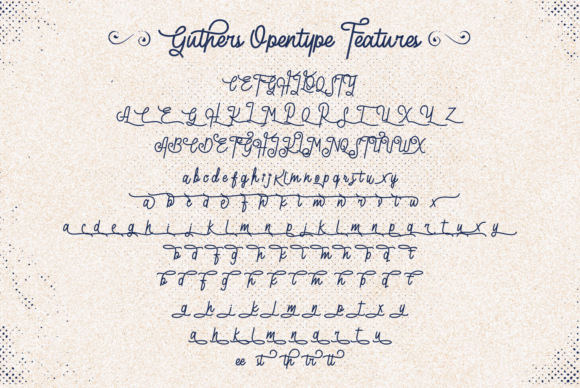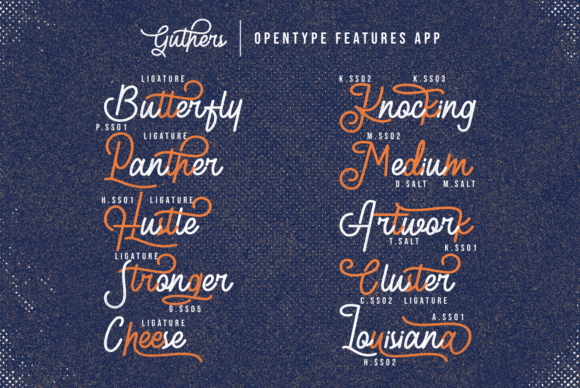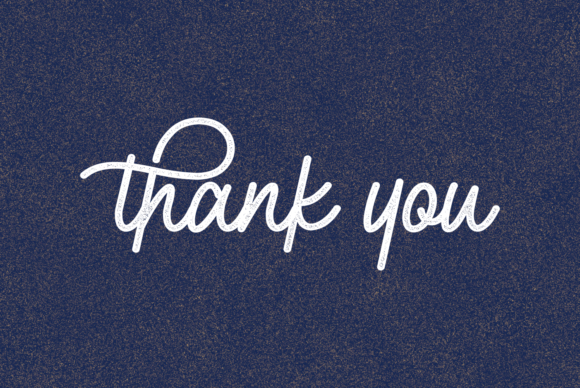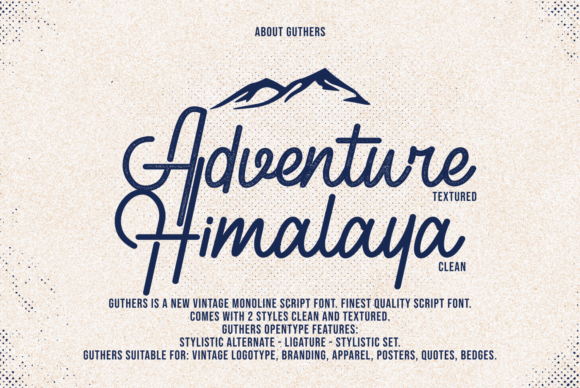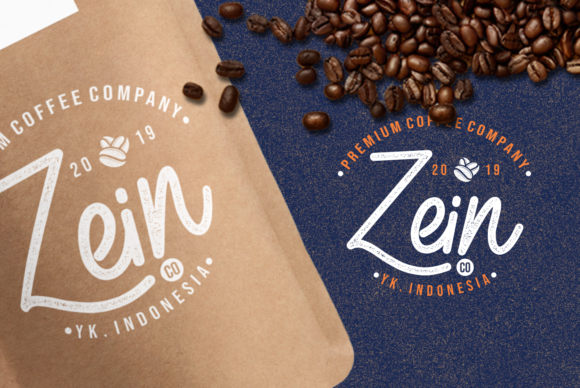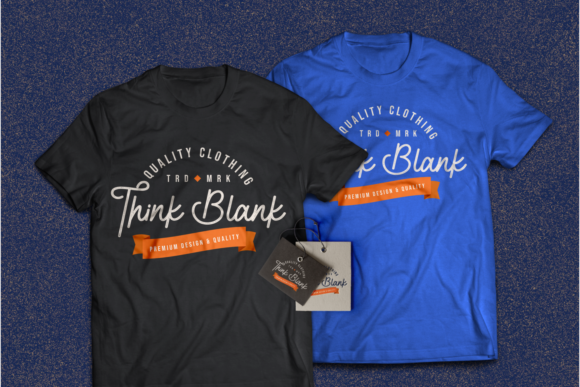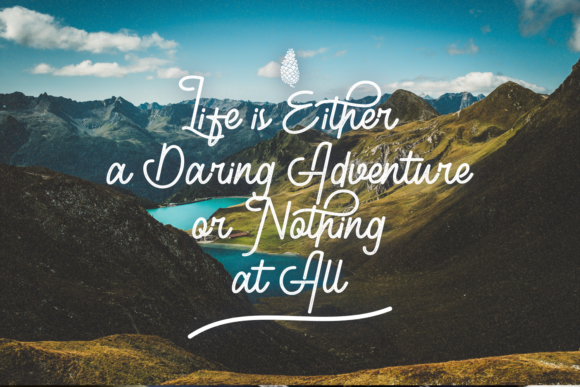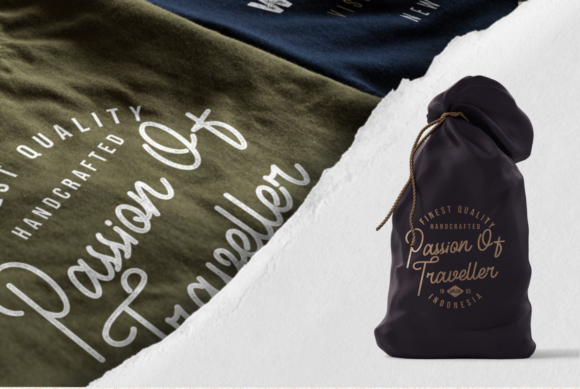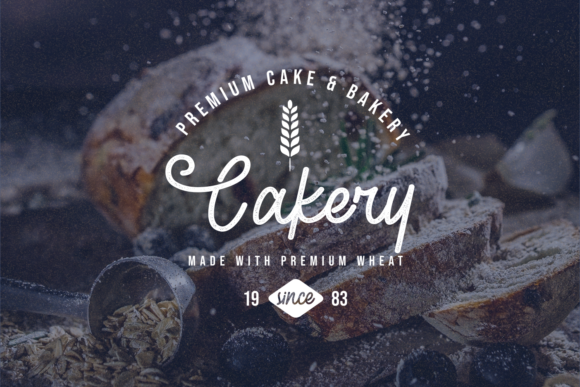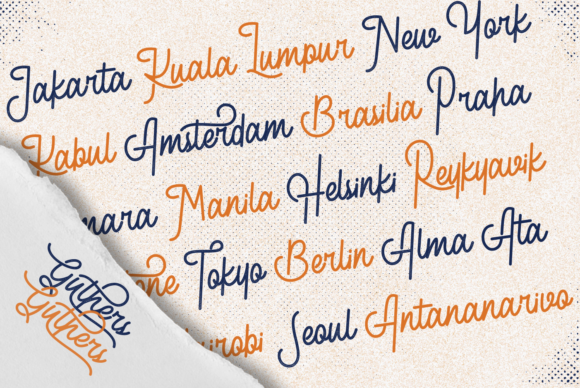
Guthers Font
About Guthers Font
Guthers is a lovely and charming handwritten font with incredible style. It will add an authentic touch to any design idea.